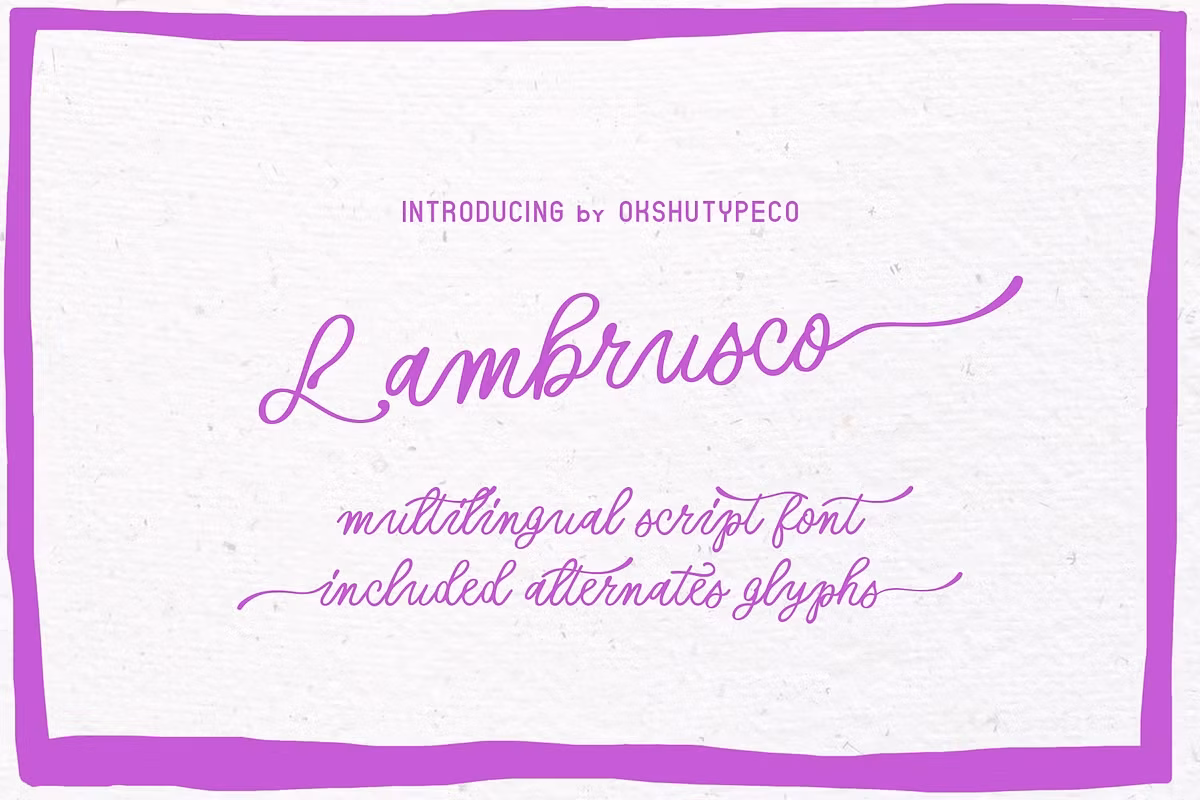
Lambrusco Font Free Download is a fresh, handmade calligraphy font that brings an elegant and personal touch to your design projects. This script typeface features smooth, flowing lines that emulate natural handwriting, making it ideal for greeting cards, branding materials, business cards, quotes, posters, and more.
Features:
Uppercase & Lowercase Letters: Provides a full set of capital and lowercase characters for versatile design applications.
Numerals & Punctuation: Includes a comprehensive range of numbers and punctuation marks to support various design needs.
Multilingual Support: Offers characters with international accents, accommodating a wide array of languages.
Alternates: Contains stylistic alternates to enhance the handwritten feel and allow for creative customization.